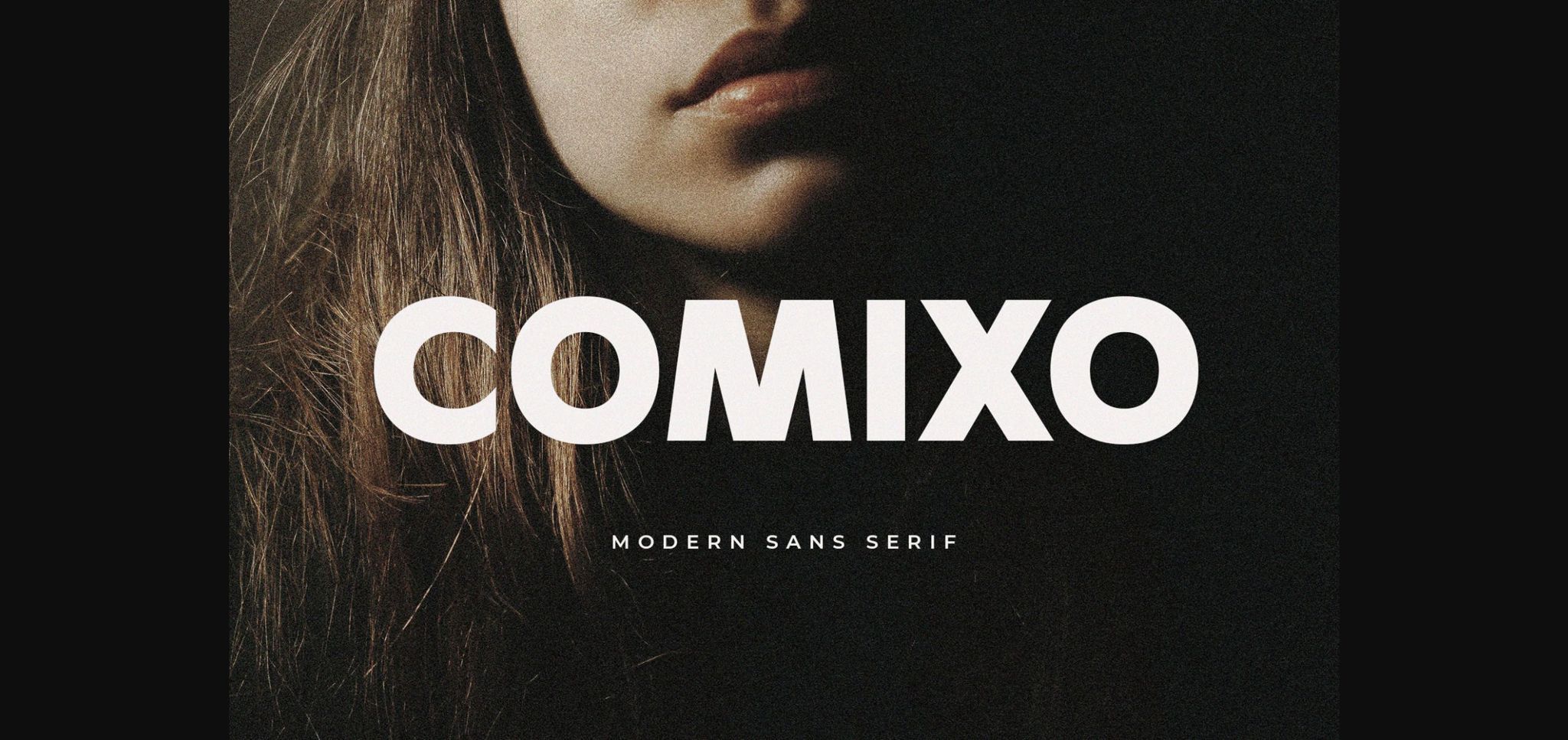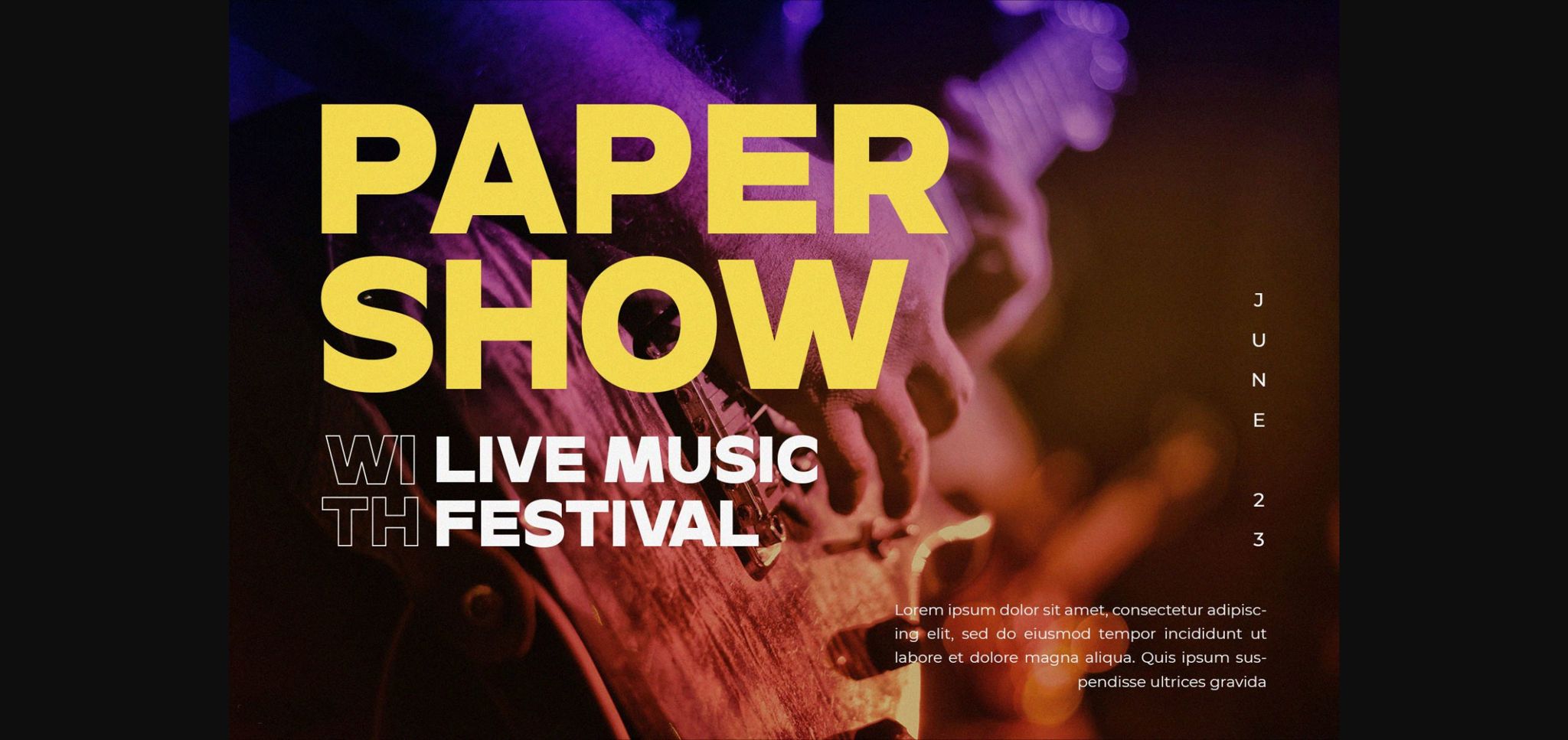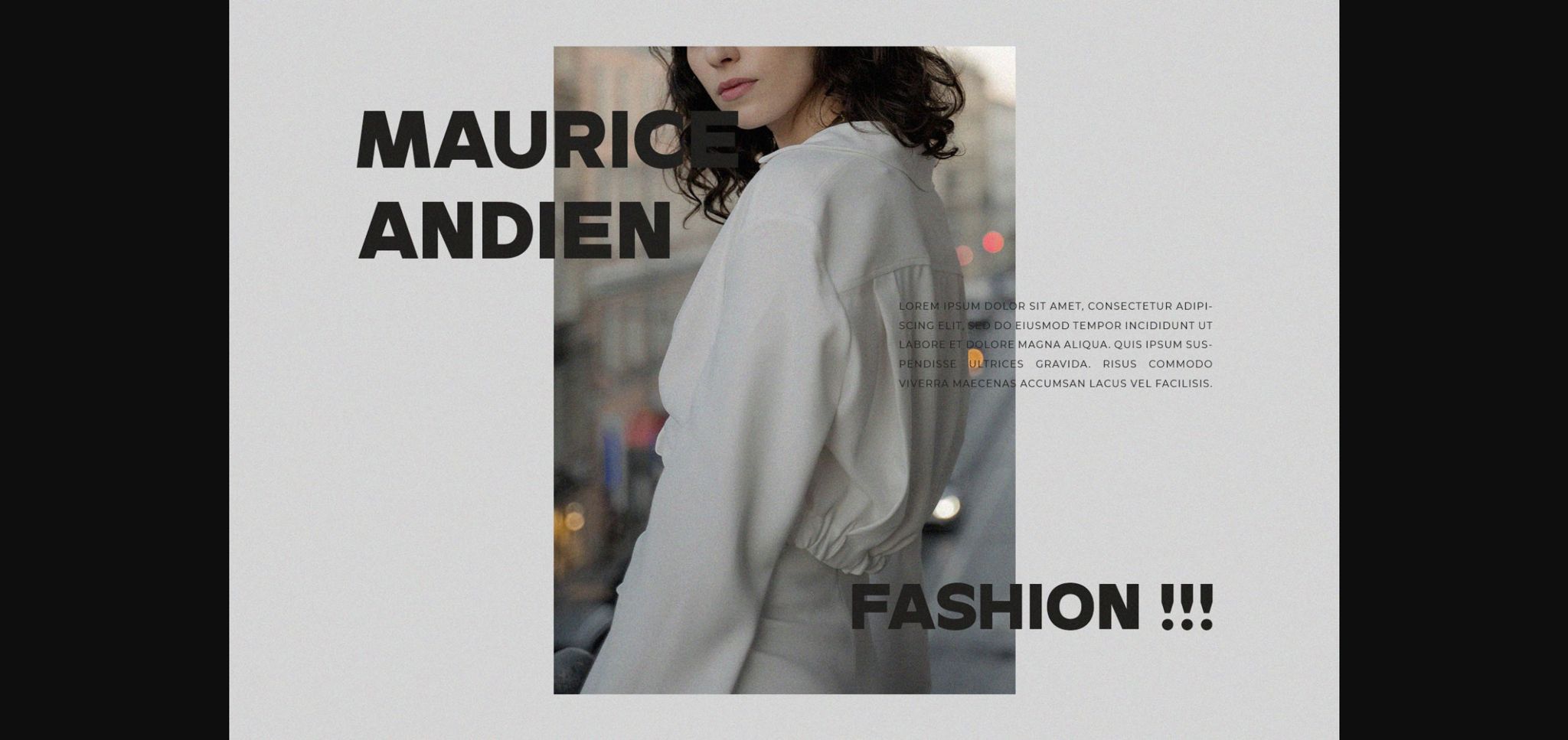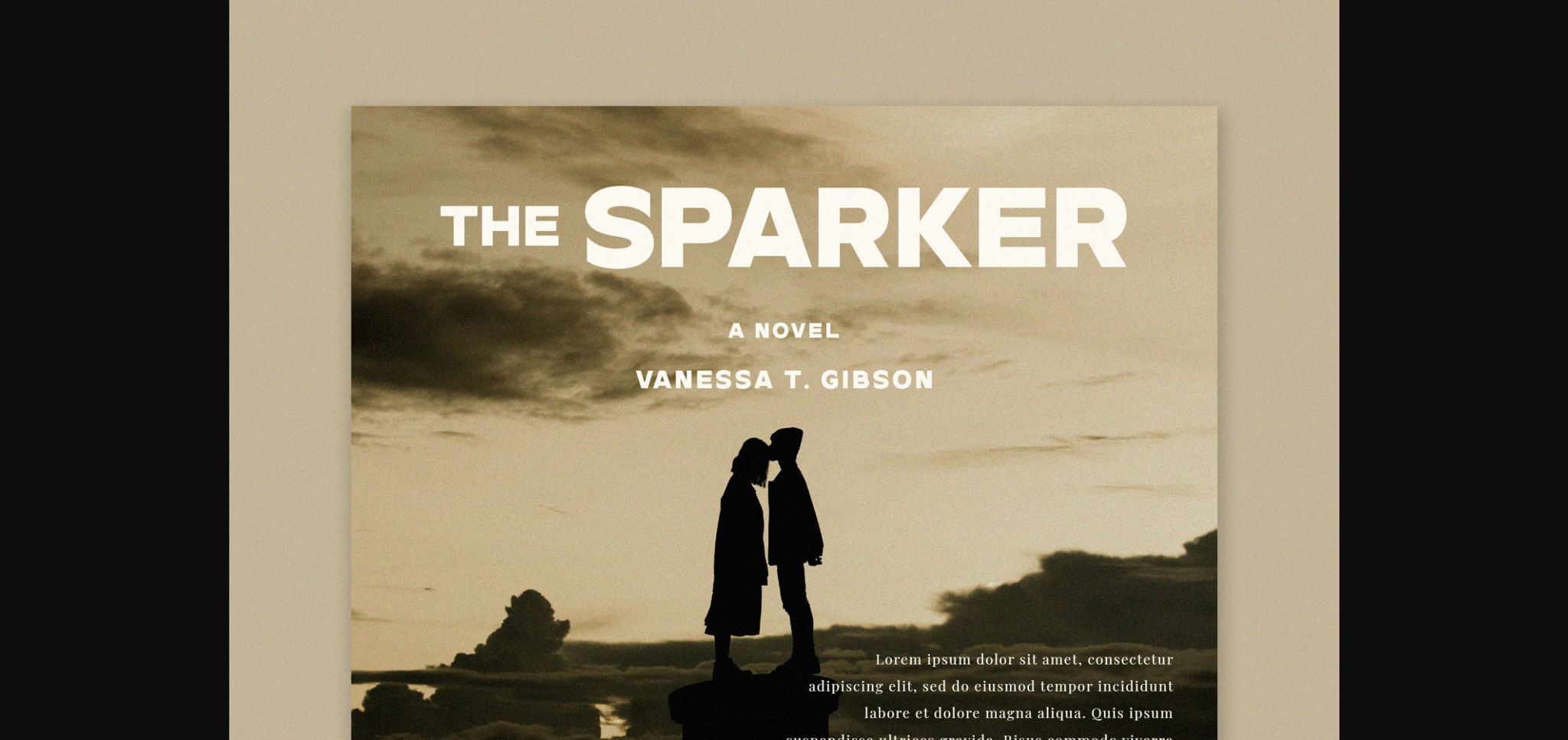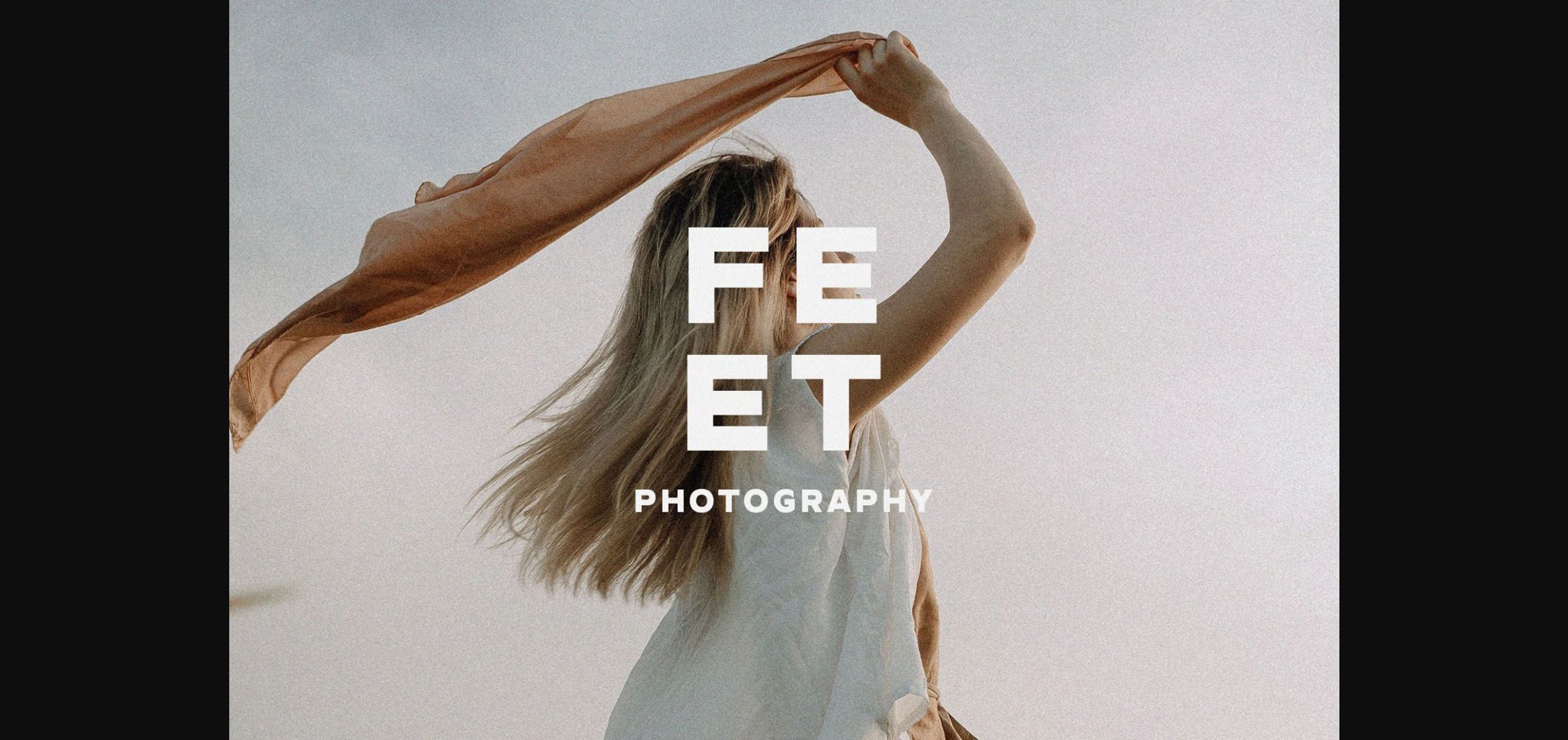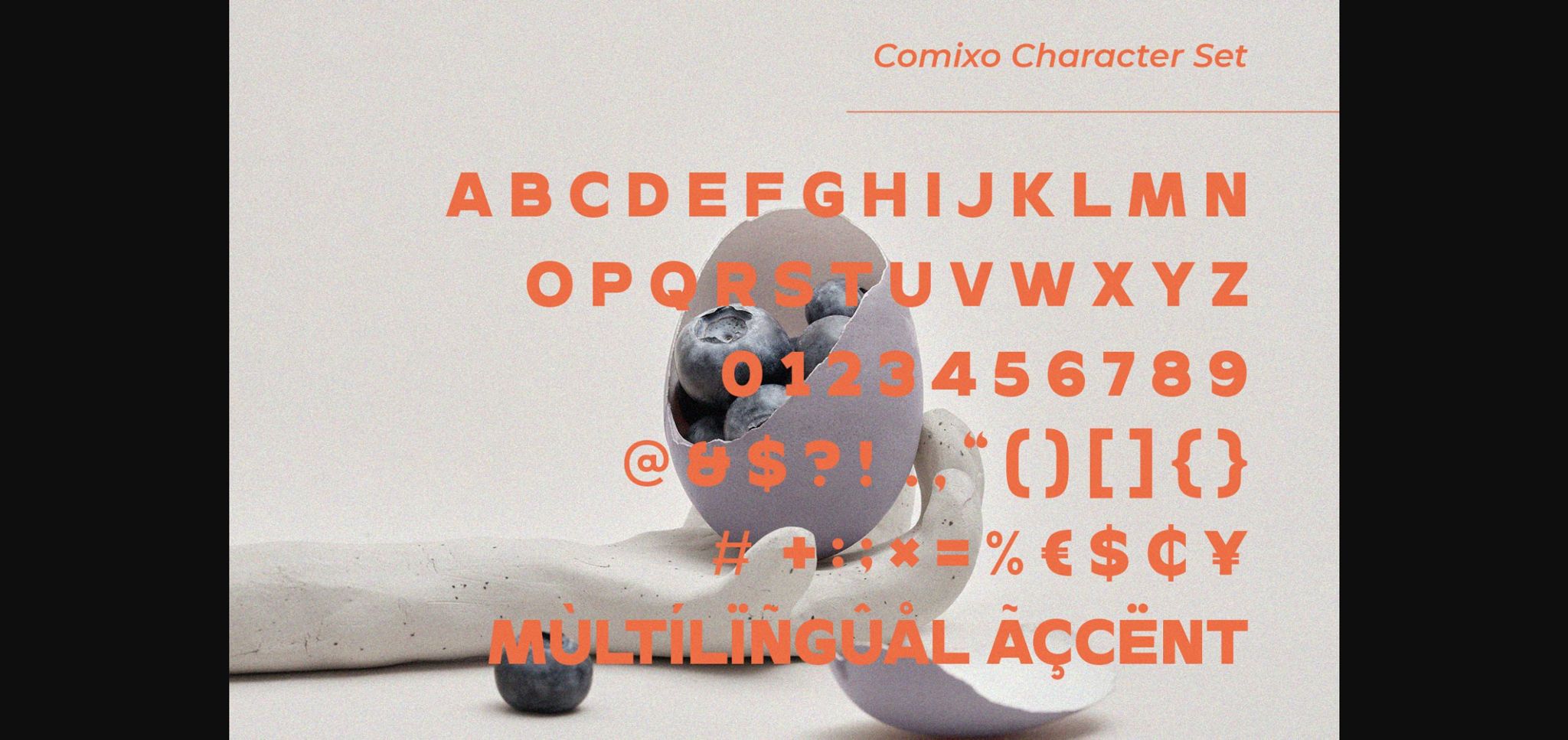
About Comixo Font
Introducing Comixo – Modern Sans Serif.
Comixo is a modern and classy typeface, best used as a display for headings, logos, branding, magazines, product packaging, and invitations. Comixo comes with clean lines and smooth curves giving any project an extra touch of class.